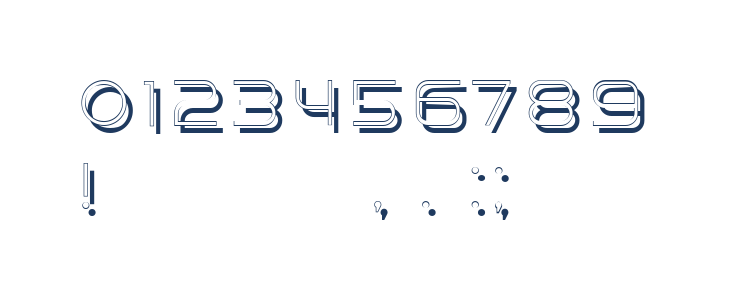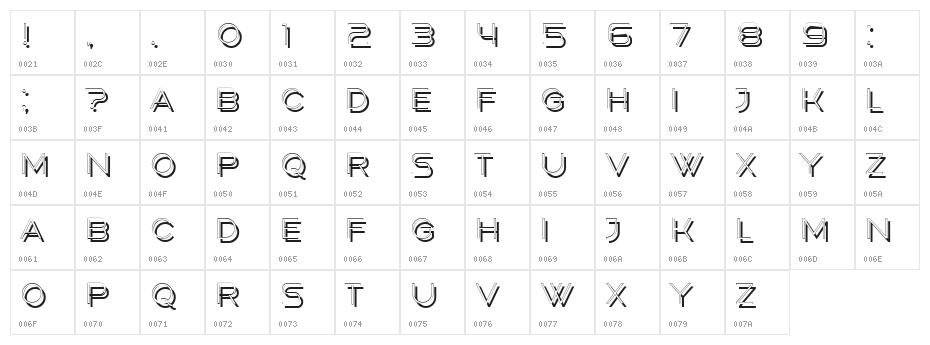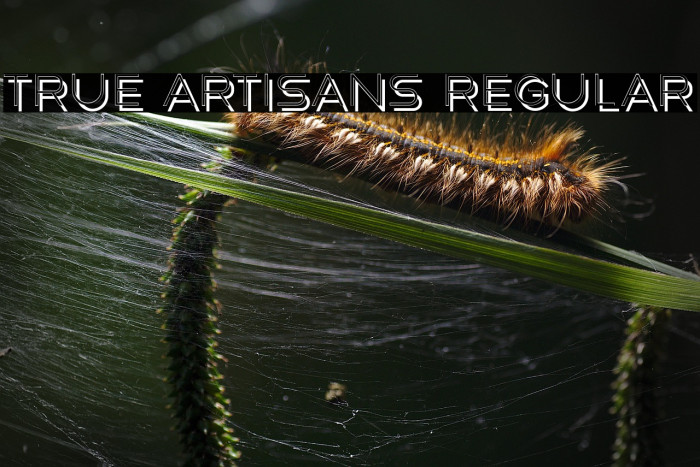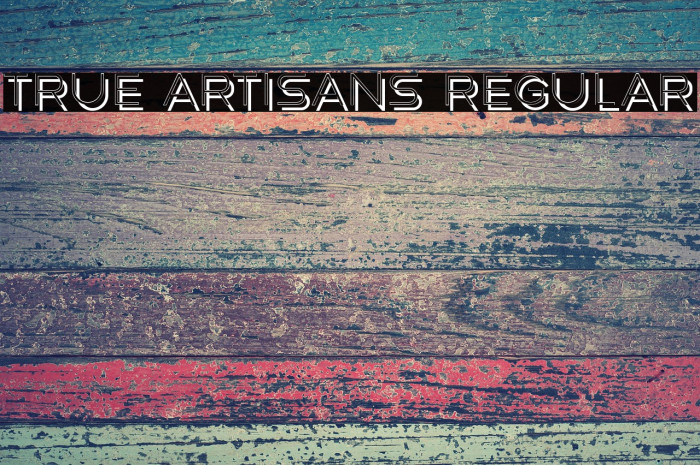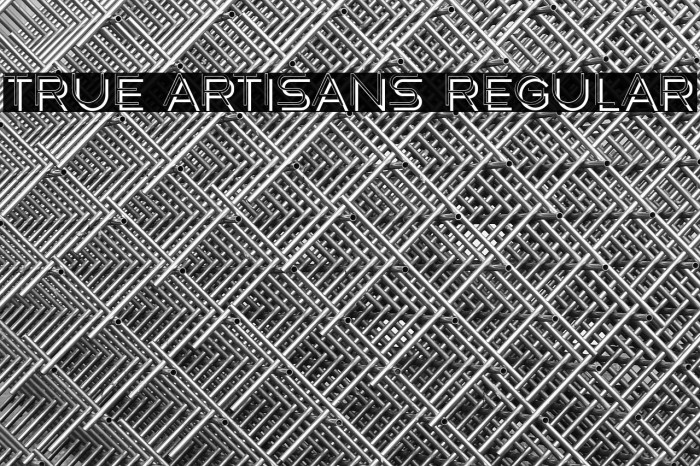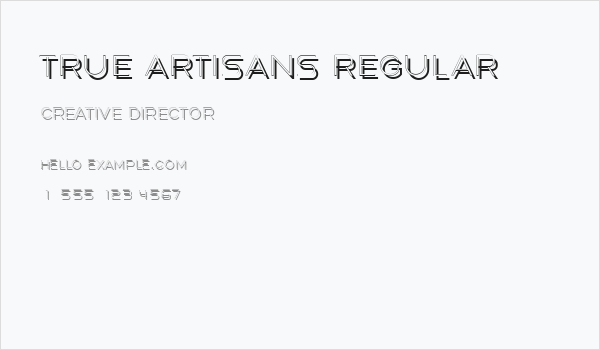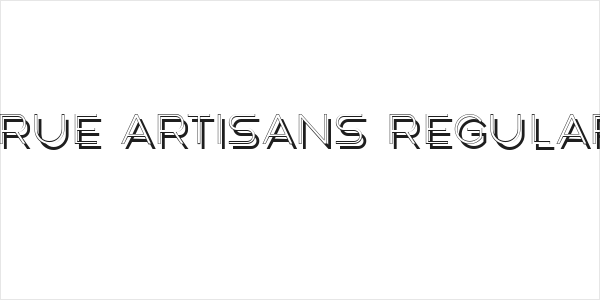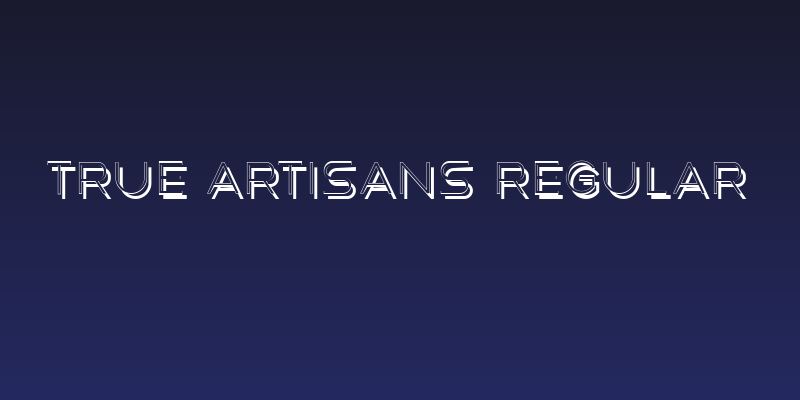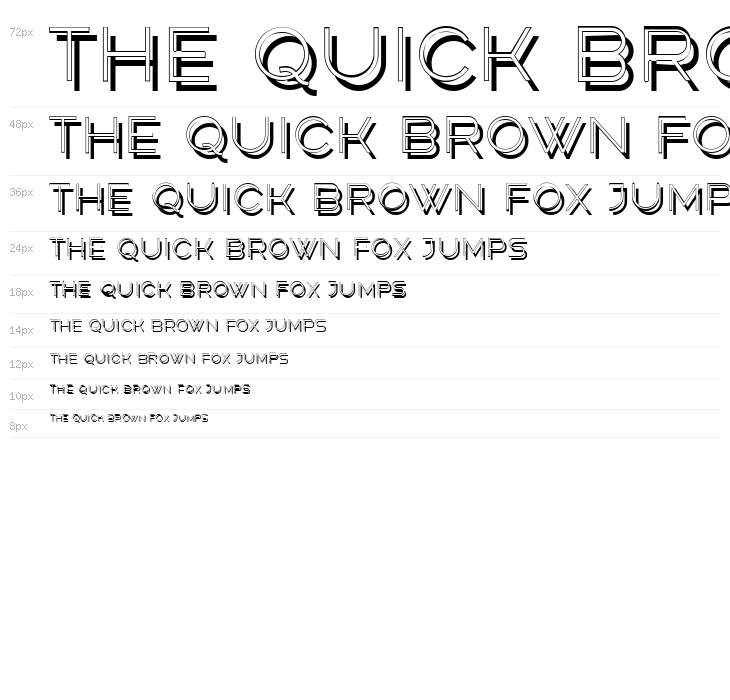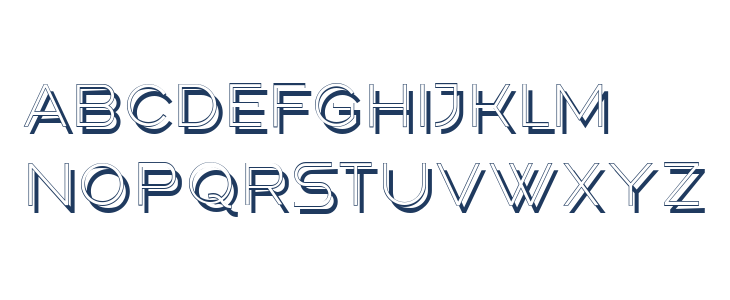
True Artisans Regular Font
True Artisans Regular Description
This font features a distinct and modern design with a geometric and layered appearance. The characters are constructed with multiple lines, creating a sense of depth and dimension. The uppercase letters are bold and structured, while the lowercase letters maintain a consistent style. The numerals are equally bold, with a unique architectural flair. Special characters are designed to complement the overall aesthetic, making this font suitable for creative and artistic projects. The clean lines and structured form give it a contemporary and innovative look, ideal for making a statement.